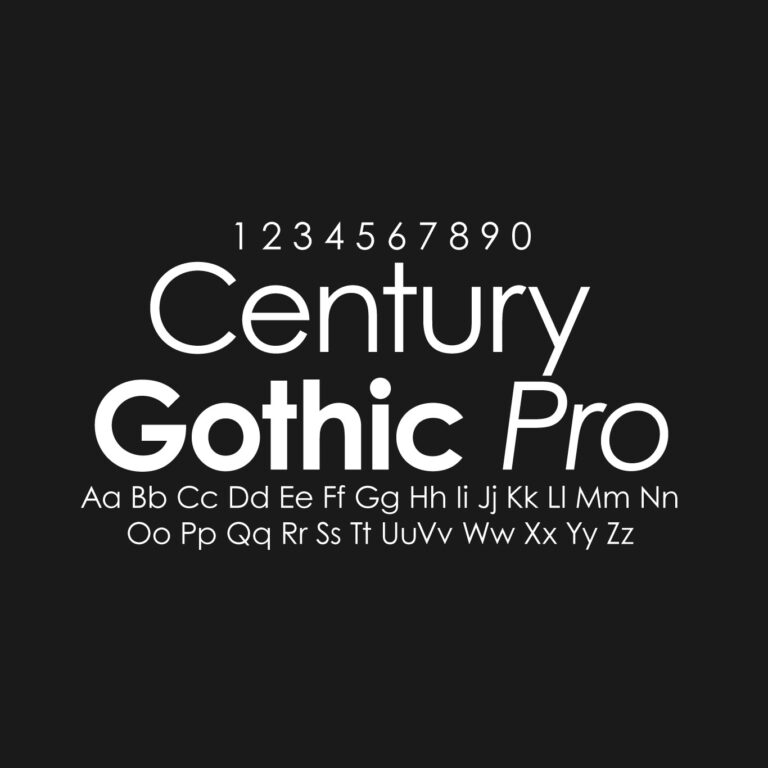
Century Gothic Pro is a geometric sans-serif typeface with circular letterforms, clean proportions and a simple modern appearance. It works well for branding, logo design, posters, presentations, editorial layouts, packaging, website headings, business materials and clean visual identity projects where a minimal geometric style is needed.
Font Name: Century Gothic Pro
Font Type: Sans Serif
Category: Geometric Sans Serif
Visual Style: Clean, geometric, circular, modern, minimal
Best For: Branding, logos, posters, presentations, packaging, editorial layouts and website headings
Foundry: Monotype